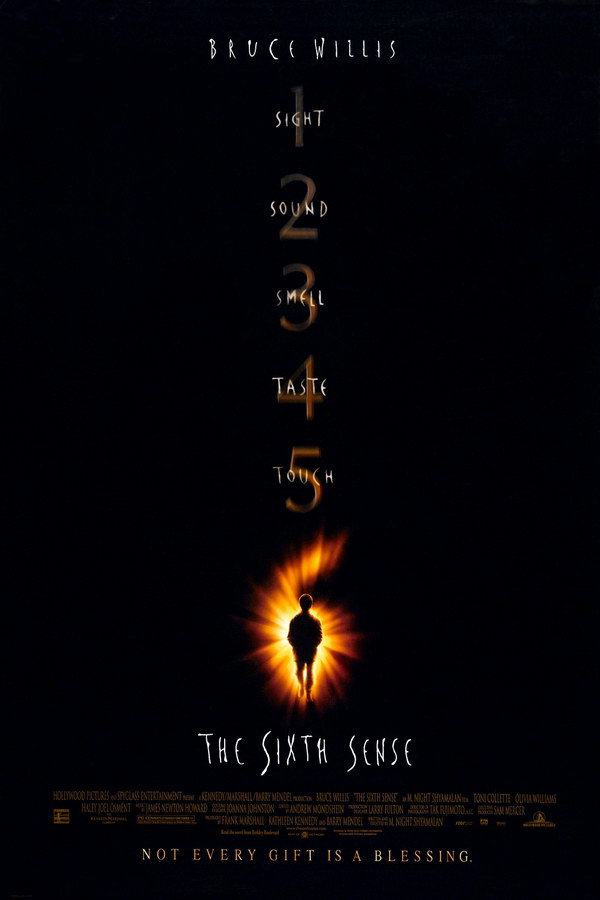
Sixth Sense Font
Fonts in UseThe Sixth Sense is a 1999 supernatural thriller directed by M. Night Shyamalan, starring Bruce Willis as a child psychologist who tries to help a young boy who claims he can see and communicate with the dead.